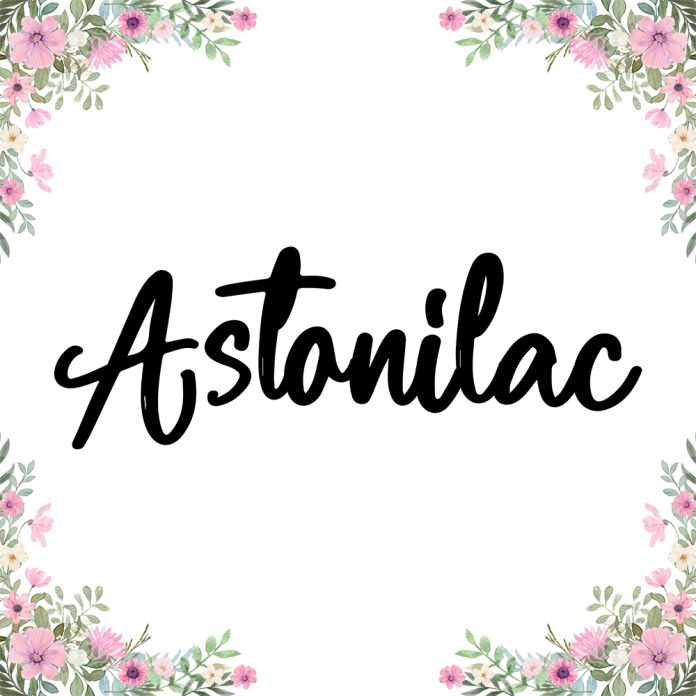
Astonilac feels equally charming and elegant. It looks stunning on wedding invitations, thank you cards, quotes, greeting cards, logos, business cards, and every other design which needs a handwritten touch.